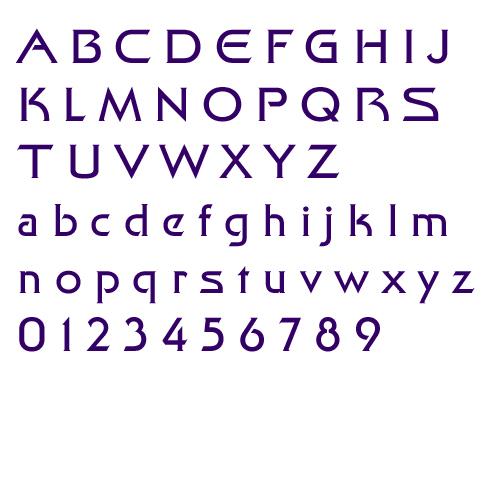
Fireside Threads is happy to present Final Frontier Alphabet machine embroidery font which has Bold and stylized, this embroidery font in rich purple suits those looking to make a statement on banners and apparel. Available in PES, DST, and 10 other formats, it's perfect for both personal and professional projects. included. If you would like to view more embroidery fonts and alphabets please search our embroidery fonts page.